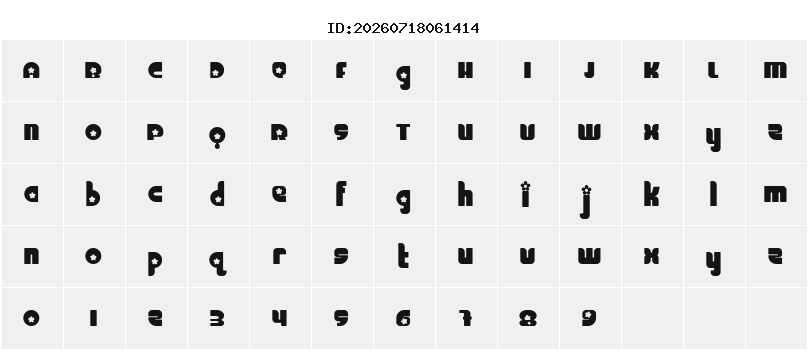
• Font Name: Chick
• Font ID: Macromedia Fontographer 4.1.2 Chick
• Full Font Name: Chick
• Version: Macromedia Fontographer 4.1.2 3/7/99
• PostScript Name: Chick
• Character Count: 238
About Chick.ttf
Chick.ttf is a modern, elegant sans-serif font designed for ultimate readability and visual harmony. Perfect for branding, headlines, web design, and print materials.